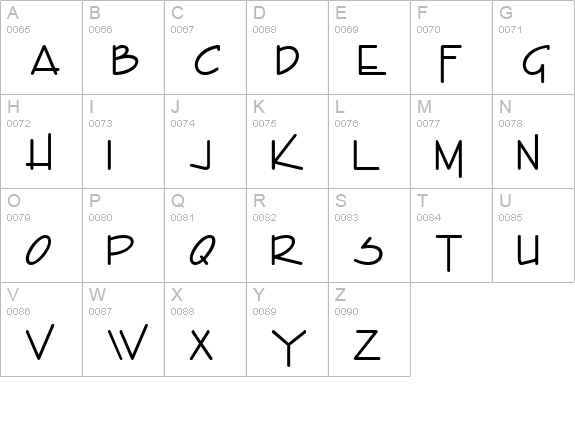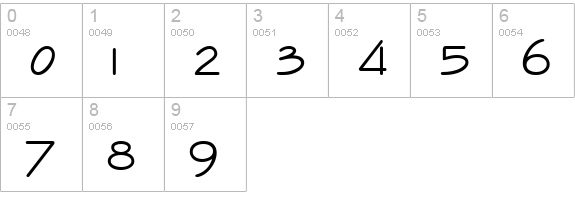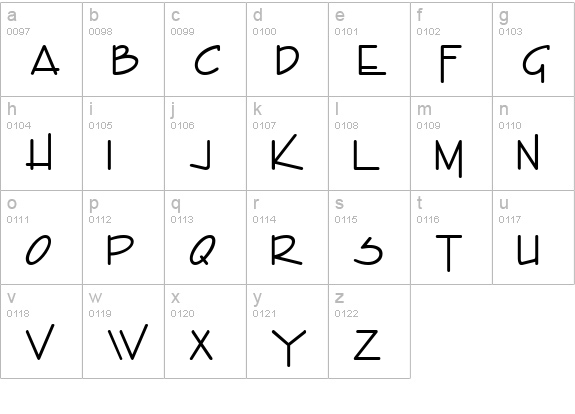
Enview Normal is the standard, neutral variant in the Enview typeface family \xE2\x80\x94 well suited to general body text, paragraphs, and standard typographic work.
Enview Normal is a modern and versatile font that exudes elegance and sophistication. With its clean lines and balanced proportions, this typeface is perfect for a wide range of design projects, from branding to editorial. The Enview Normal font strikes the perfect balance between professionalism and creativity, making it ideal for both corporate communications and artistic endeavors. What sets Enview Normal apart is not only its timeless design but also the fact that it is available for free download at FontsMarket.com. This means that you can easily access this high-quality font without any cost, making it a valuable addition to your font library. Whether you are a designer looking for a reliable typeface or a hobbyist seeking to enhance your creative projects, Enview Normal is a fantastic choice that combines style and accessibility. Download it today and elevate your designs with this exceptional font.